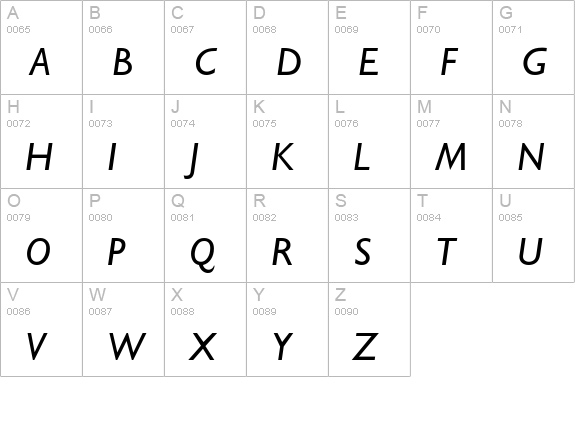
Stimmell-Italic Font Details
Stimmell-Italic is a distinctive, italic variant in the Stimmell typeface family \xE2\x80\x94 well suited to design and typography projects.
Stimmell-Italic font exudes elegance and sophistication with its sleek and refined design. This timeless typeface is perfect for adding a touch of class to any project, whether it be for print or digital media. The italicized characters flow gracefully, making it ideal for conveying a sense of style and sophistication. And the best part? Stimmell-Italic is available for free download at FontsMarket.com! This means you can elevate your design projects without breaking the bank. Don't miss out on the opportunity to enhance your work with this stunning font that is both stylish and accessible. Download Stimmell-Italic today and bring a touch of luxury to your designs.